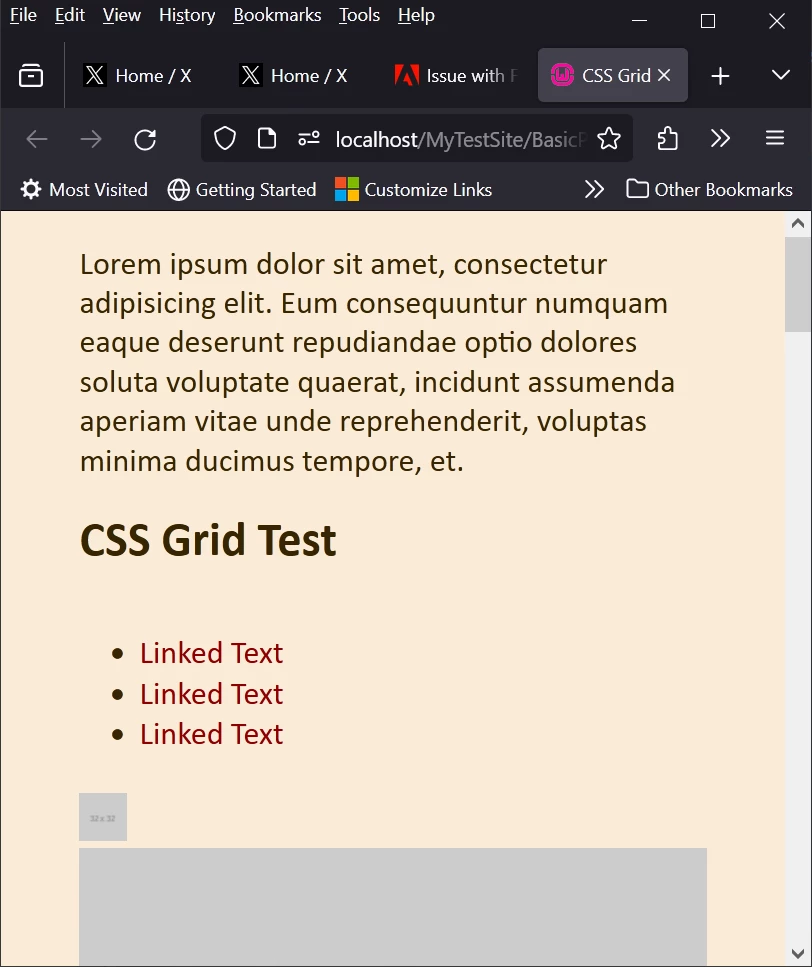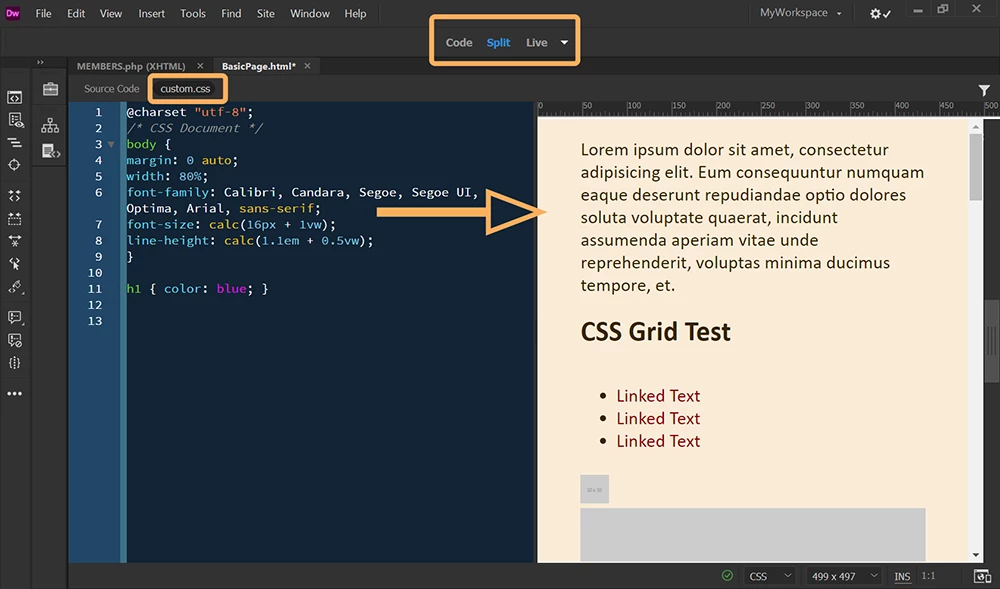
Issue with Fonts / Misleading Preview
When html-page uses a font-family tag, the result is different in a web browser from what Dreamweaver shows in preview. Especially, number 0 shows in the browser with diagonal line inside the number. This may be misleading and affect readability. Thanks.
Well that's your problem.  Use universal character encoding of UTF-8, not iso-8859-1.
You can't predict which fonts are available on all devices so you make a font-family from a web-safe list of fonts with similar characteristics.
As an example,
body {
font-family: Calibri, Candara, Segoe, Segoe UI, Optima, Arial, sans-serif;
When 1st font isn't available, the 2nd font is displayed, or the 3rd or 4th, etc... until one matches the device fonts.
As seen in Dreamweaver Live View.
As seen in latest Firefox desktop browser:
Since this is being viewed from the same device, the fonts are identical.
On another device, the fonts may be different.
Thanks for the overview. However, using the Lucida Grande...Verdana font family on the same device, the number 0 had apparently changed to the font with a diagonal line inside the character in Chrome/Mac/Monterey.
The only time I have seen strange font behavior on a Mac prior is when there is a corrupt font on the system. Has this problem only started to occur recently, and if so, can you try disabling some of the newly installed fonts to see if this remedies the issue.
I'm referring to the preview pane above the html-code pane in the split view of the Dreamviewer main pane. Thanks.
Are you using Live View when you are previewing in Dreamweaver? Could you show a screenshot of what you are seeing?